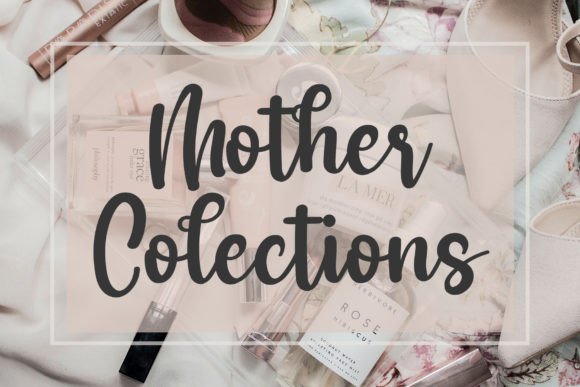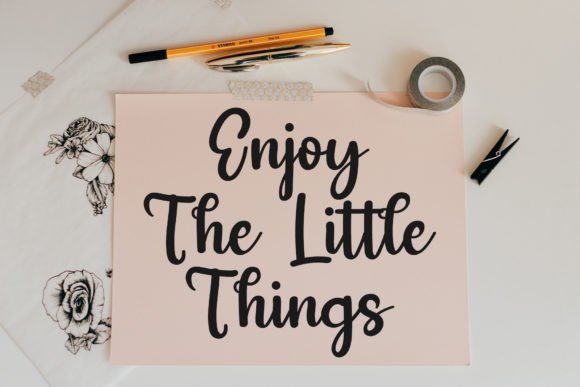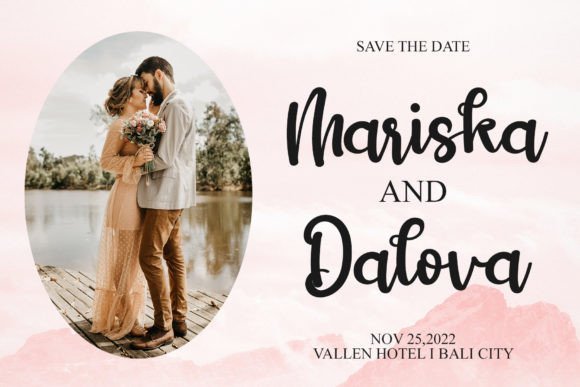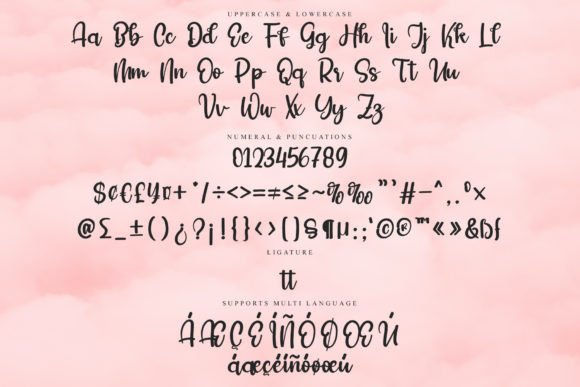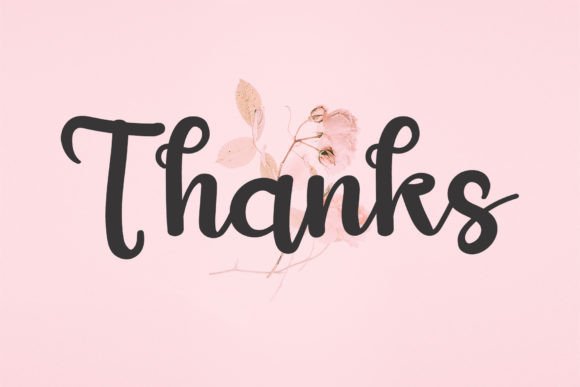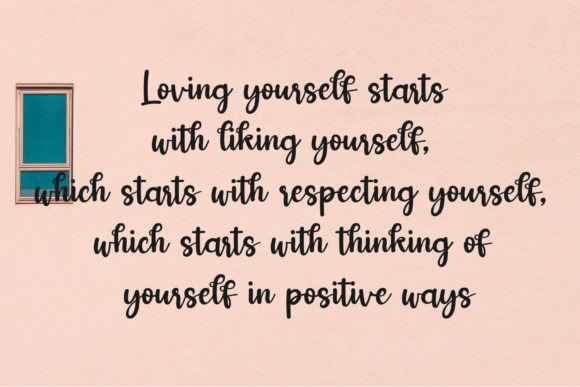
Maley Font
Maley Font Download – Stylish Elegant Script Typeface
The Maley Font download is a stylish and dainty script typeface that brings elegance and sophistication to your designs. With its graceful flow and refined details, this font is ideal for both personal and professional use. Whether you are creating logos, event stationery, or branding projects, Maley adds a timeless handwritten touch to your work.
A Stylish and Dainty Script Style
The Maley Font download features delicate strokes and balanced letterforms that create a polished and elegant appearance. Its stylish flow makes it suitable for a wide variety of design projects, from formal invitations to decorative digital graphics.
Perfect for Logos and Branding
The Maley Font download is an excellent choice for logos, business cards, and promotional designs. Its elegant handwritten look communicates creativity and professionalism, making it especially fitting for boutique brands, photographers, and lifestyle businesses.
Great for Labels and Watermarks
Labels, packaging, and photography watermarks stand out beautifully with the Maley Font download. Its dainty style adds refinement and ensures your designs maintain a polished and cohesive look.
Versatile for Special Events and Stationery
The Maley Font download adapts seamlessly to wedding invitations, thank you cards, and event programs. Its flowing script captures romance and charm, ensuring that your stationery feels memorable and unique.
Readability with Elegant Charm
While many decorative fonts can be difficult to read, the Maley Font download balances style with legibility. Its neat strokes and graceful forms make it easy to use across both large titles and medium-sized text.
Why Choose Maley Font?
Among script fonts, the MaleyFont download stands out for its dainty yet stylish design. It offers the perfect blend of beauty and usability, making it a valuable typeface for a wide range of creative applications.
Add Elegance to Your Designs
Typography defines the mood of your work, and the MaleyFont download ensures your projects radiate sophistication, creativity, and charm. Whether for branding, labels, or invitations, this font helps your creations shine with timeless handwritten elegance.